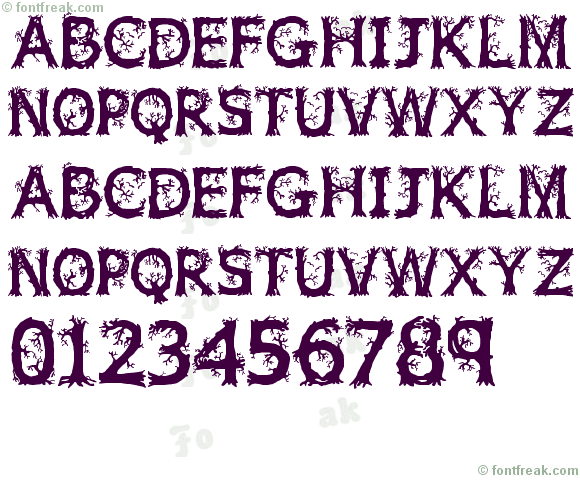
JFWildWood
Discover the charm of the Wildwood font by Jester Font Studio, a striking display typeface that captures the essence of nature-inspired design. This freeware font boasts an organic, handcrafted aesthetic, making it perfect for projects that require a touch of whimsy and creativity. With its unique serif characteristics, Wildwood features playful, elongated strokes that create a sense of movement and flow. The varying stroke weights add depth, while the thoughtfully crafted letterforms ensure legibility without sacrificing style.
Wildwood's visual characteristics include its rich, decorative elements that evoke a feeling of rustic elegance. The font's spacious letter spacing enhances readability, making it versatile for various applications. Ideal for wedding invitations, where a personal touch is desired, Wildwood adds a romantic flair. It also shines in movie posters, lending a touch of adventure and intrigue to cinematic promotions. Small business owners can utilize this font for restaurant menus to create an inviting atmosphere, or for branding that resonates with nature lovers. Content creators will find it perfect for blog headers and social media graphics, where a unique visual identity is essential.
What truly sets the Wildwood font apart is its ability to blend artistry with functionality. This font not only captures attention but also tells a story, inviting viewers to engage with the content it adorns. For those seeking a touch of the outdoors in their design work, the Wildwood font free download is an opportunity to elevate creativity while maintaining a professional edge.